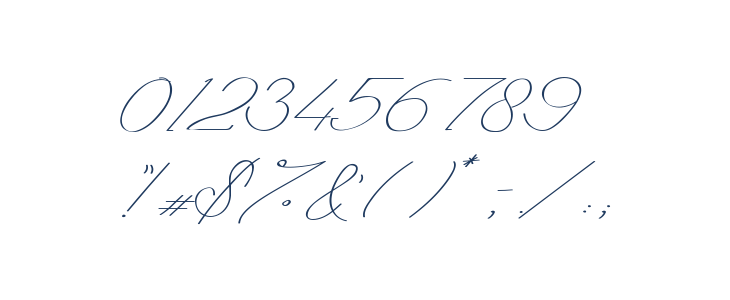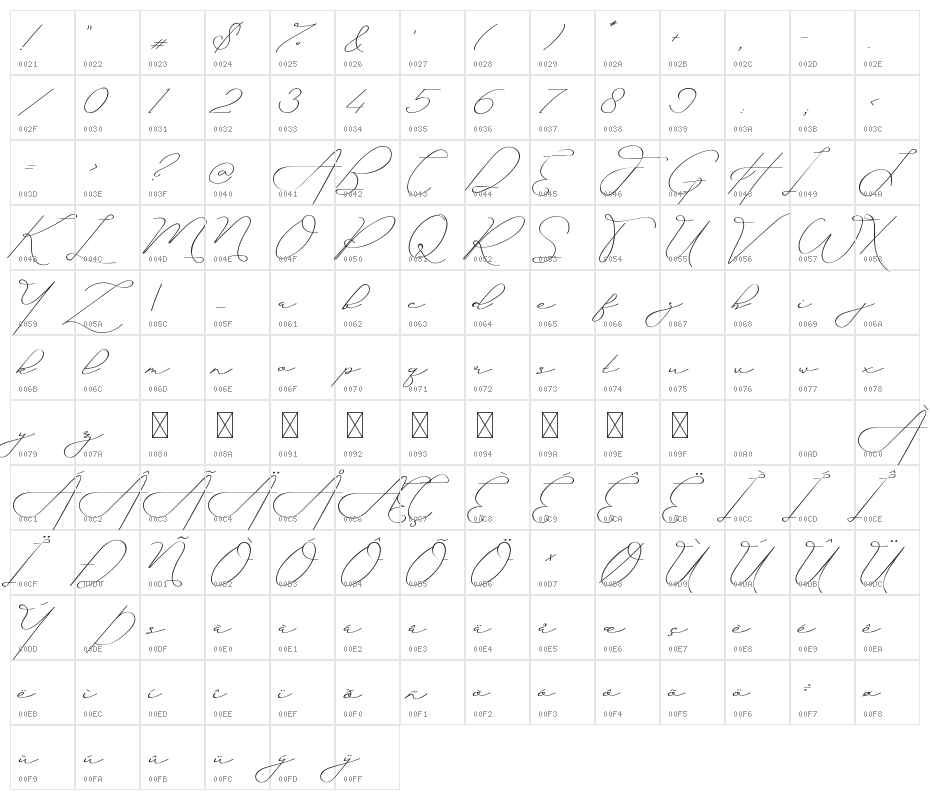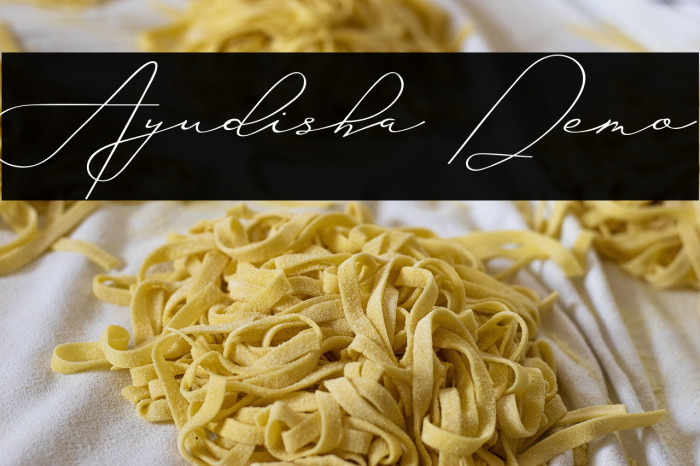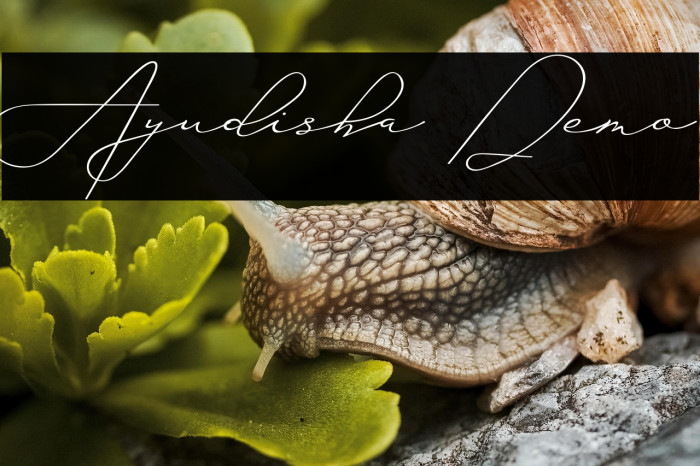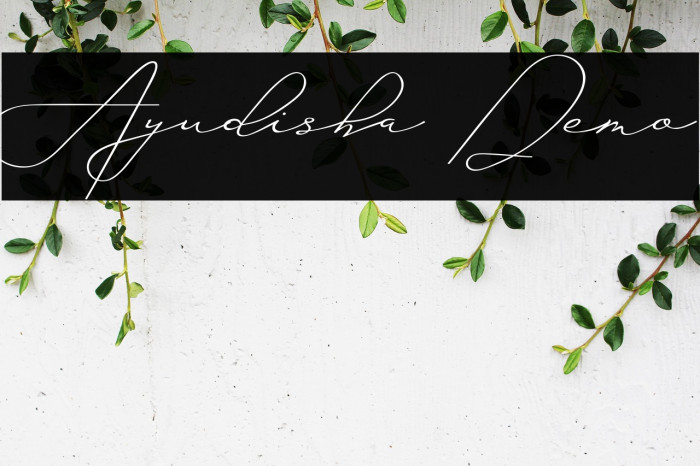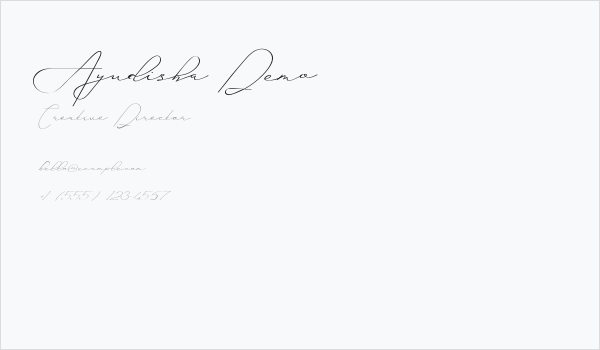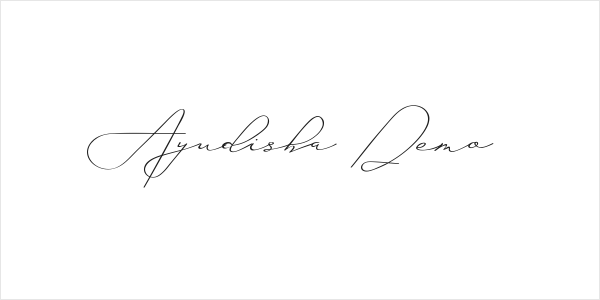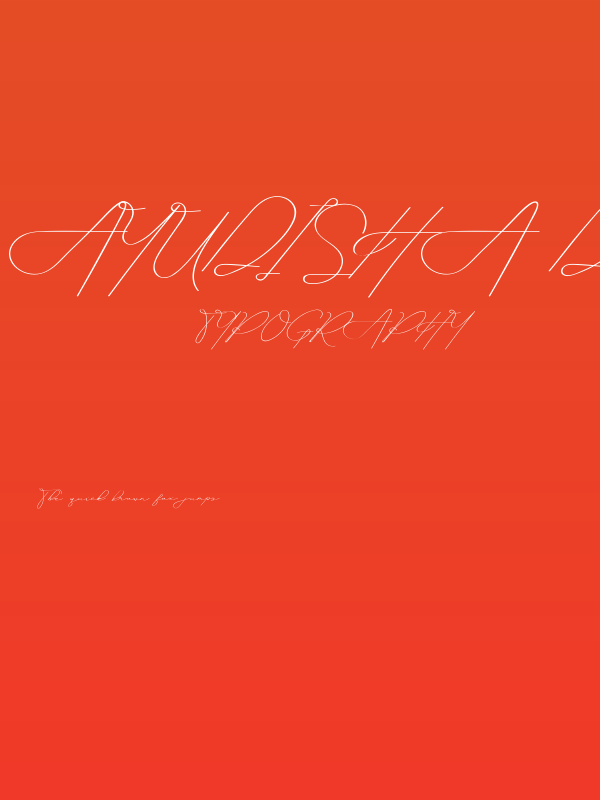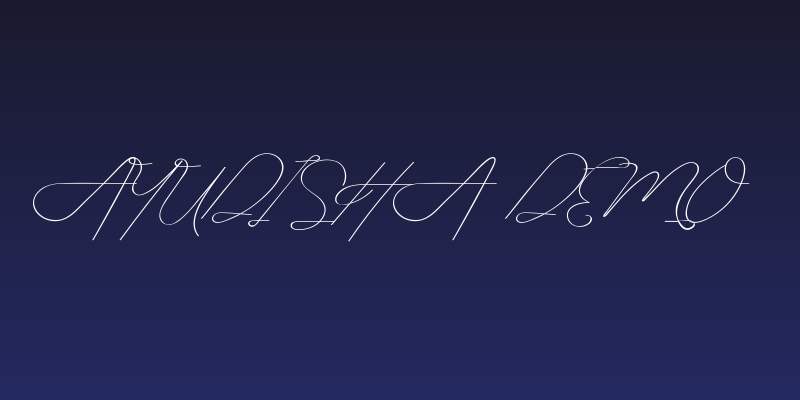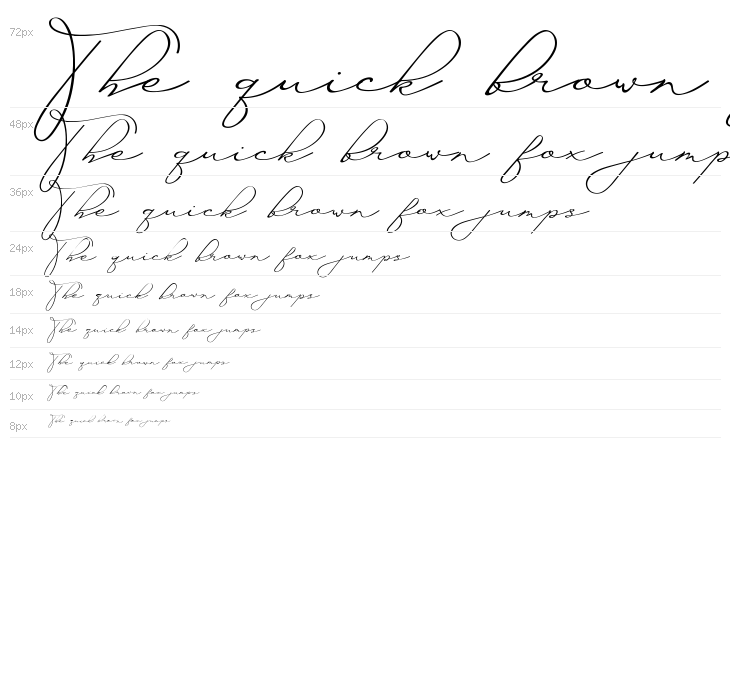
Ayudisha Demo Font
Ayudisha Demo Description
This elegant script font features a flowing, cursive style with delicate, interconnected strokes. The uppercase letters are characterized by their sweeping, elongated lines, while the lowercase letters maintain a consistent, graceful rhythm. The numerals and special characters are designed with the same fluidity, ensuring a cohesive look across all elements. The font's thin lines and gentle curves evoke a sense of sophistication and refinement, making it ideal for formal invitations, branding, and decorative purposes. Its overall appearance is both classic and modern, offering versatility in various design contexts.
Overall StyleElegant, Classic
Use CaseInvitations, Branding, Decorative
Proposed ProjectsIdeal for wedding invitations, luxury branding, elegant stationery, and decorative designs.